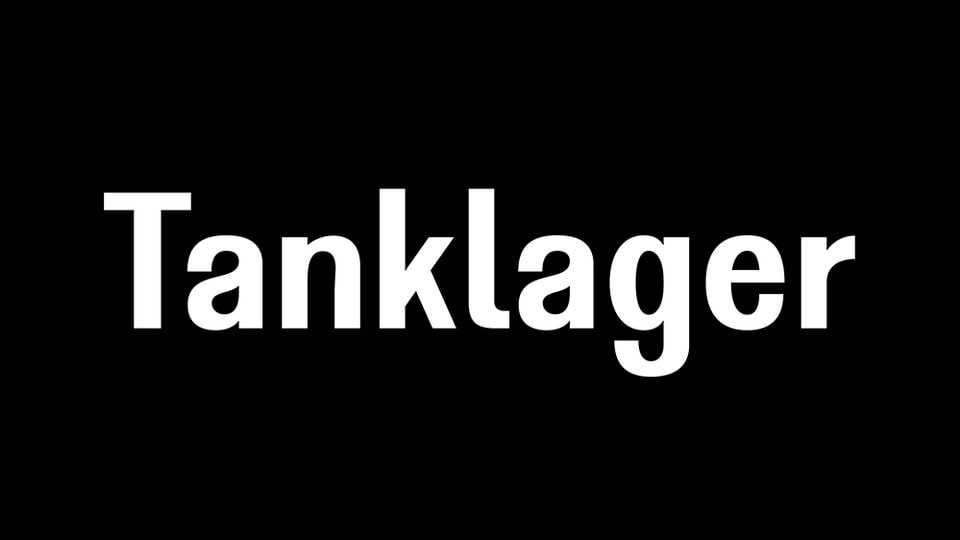
Download Tanklager font, a typeface inspired by a weird hand-painted sign found on the side of an oil tank in Visp, Switzerland. Its type design is a mixture of DIN and grotesk features.
Designer: Ariel Martín Pérez